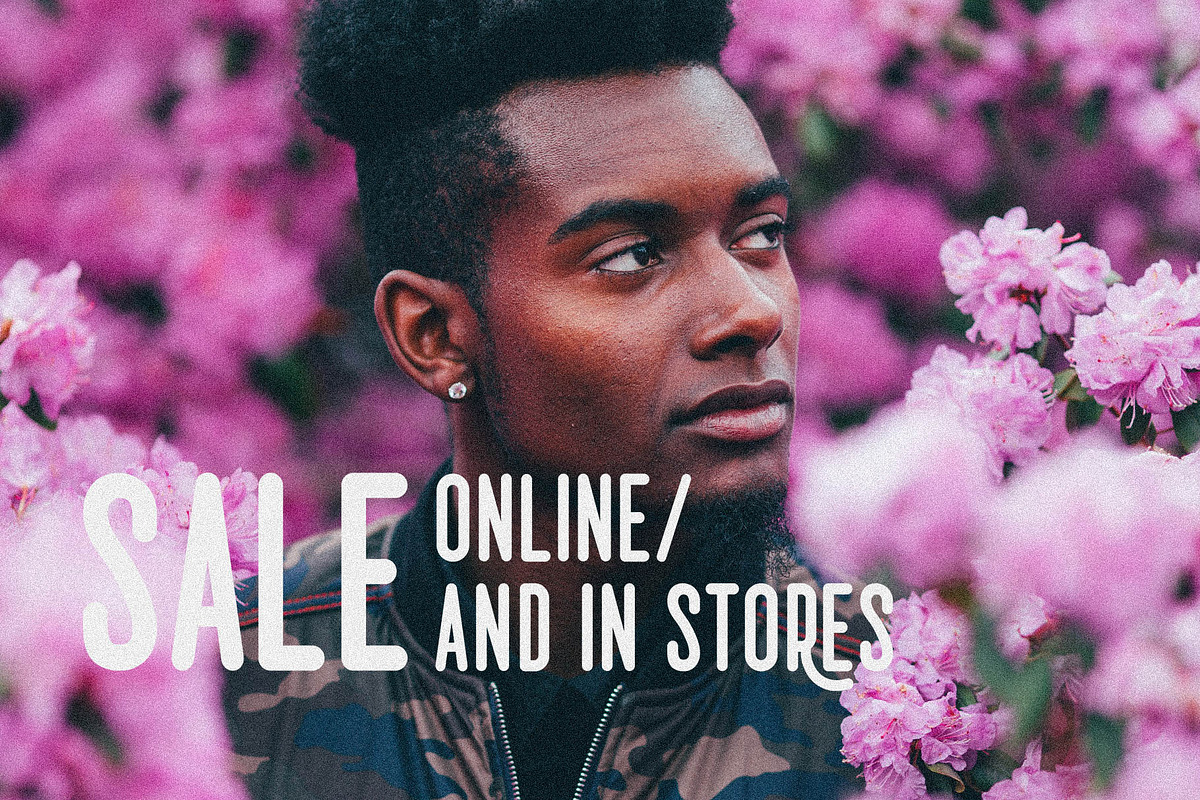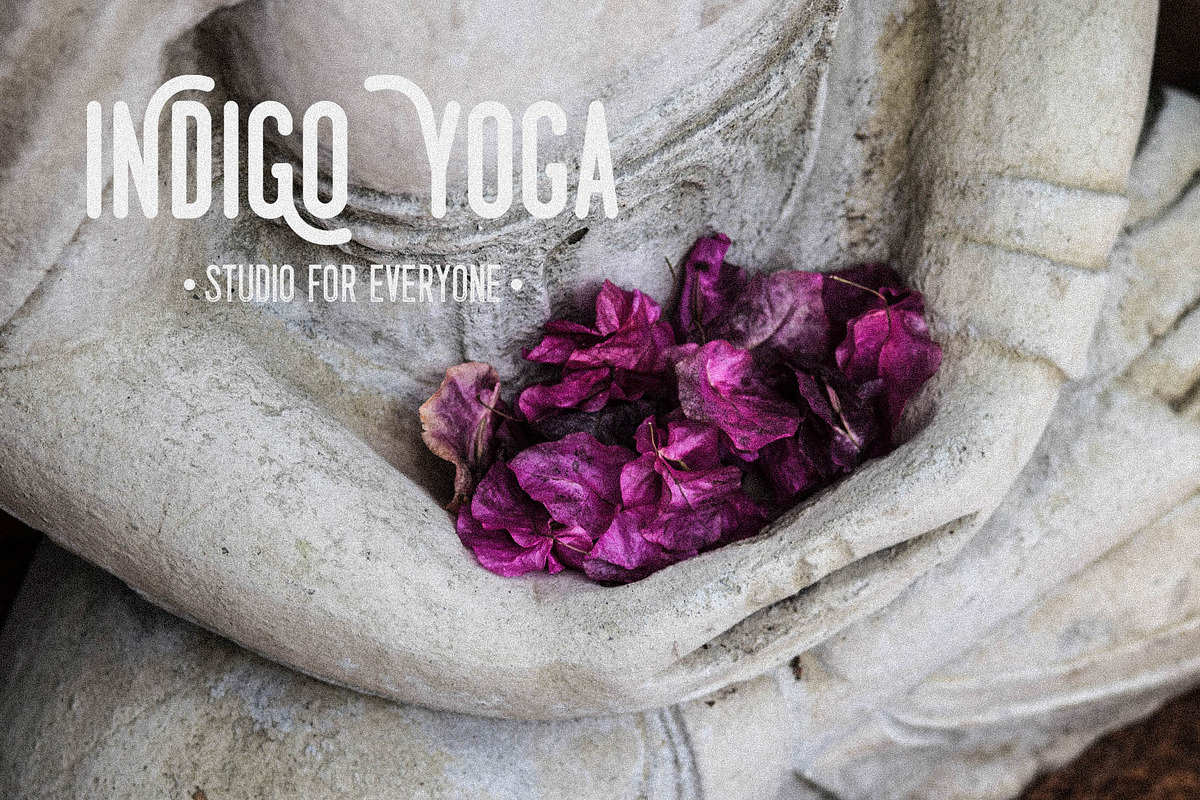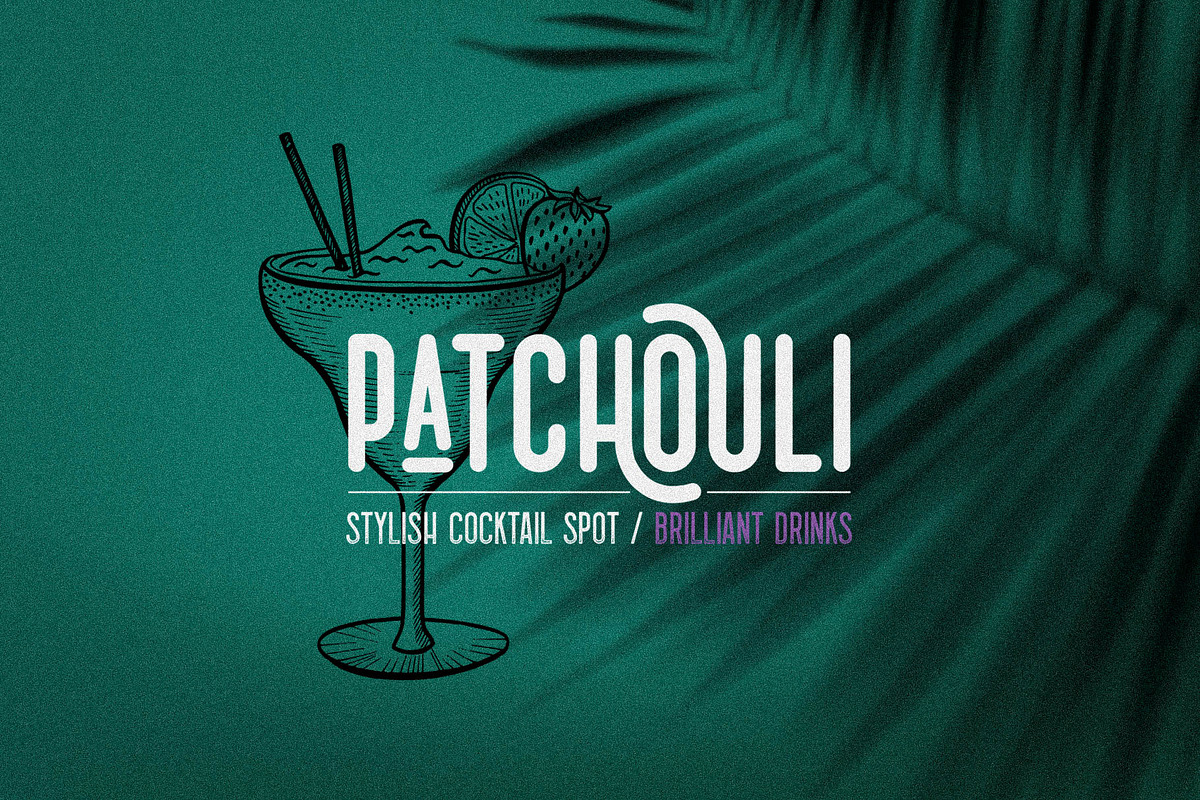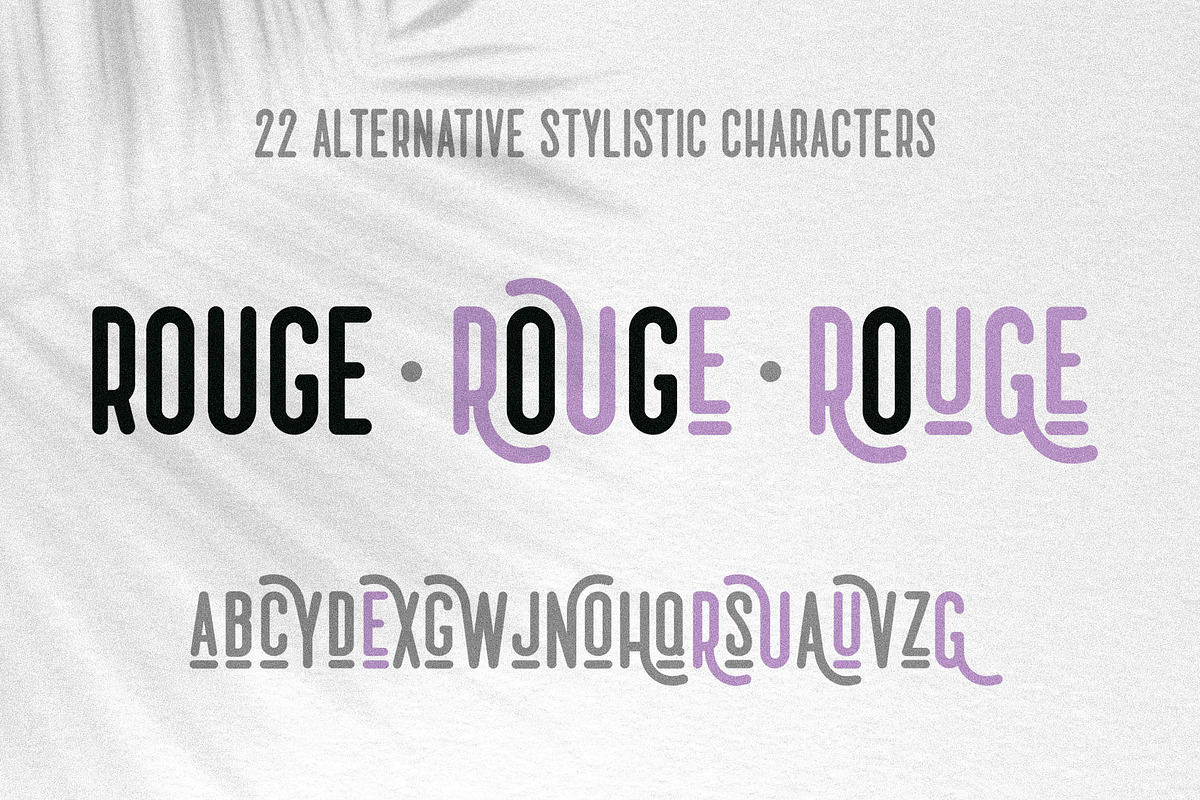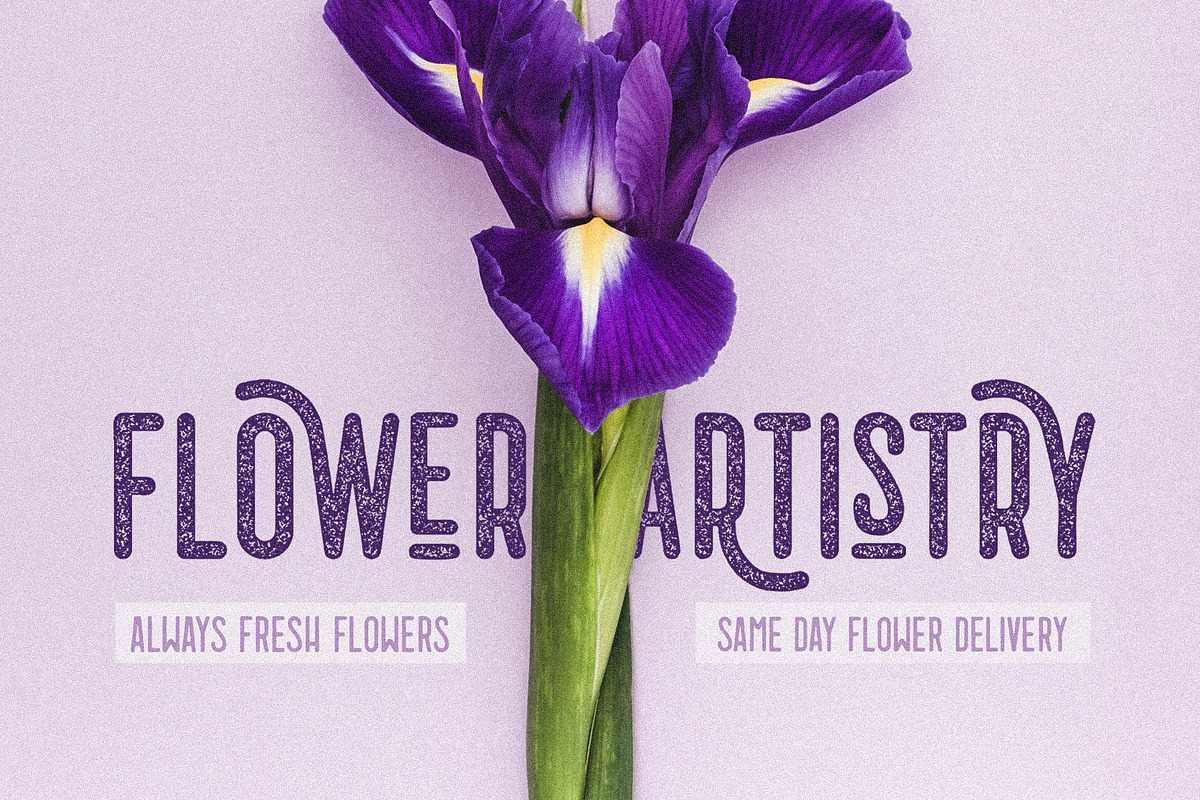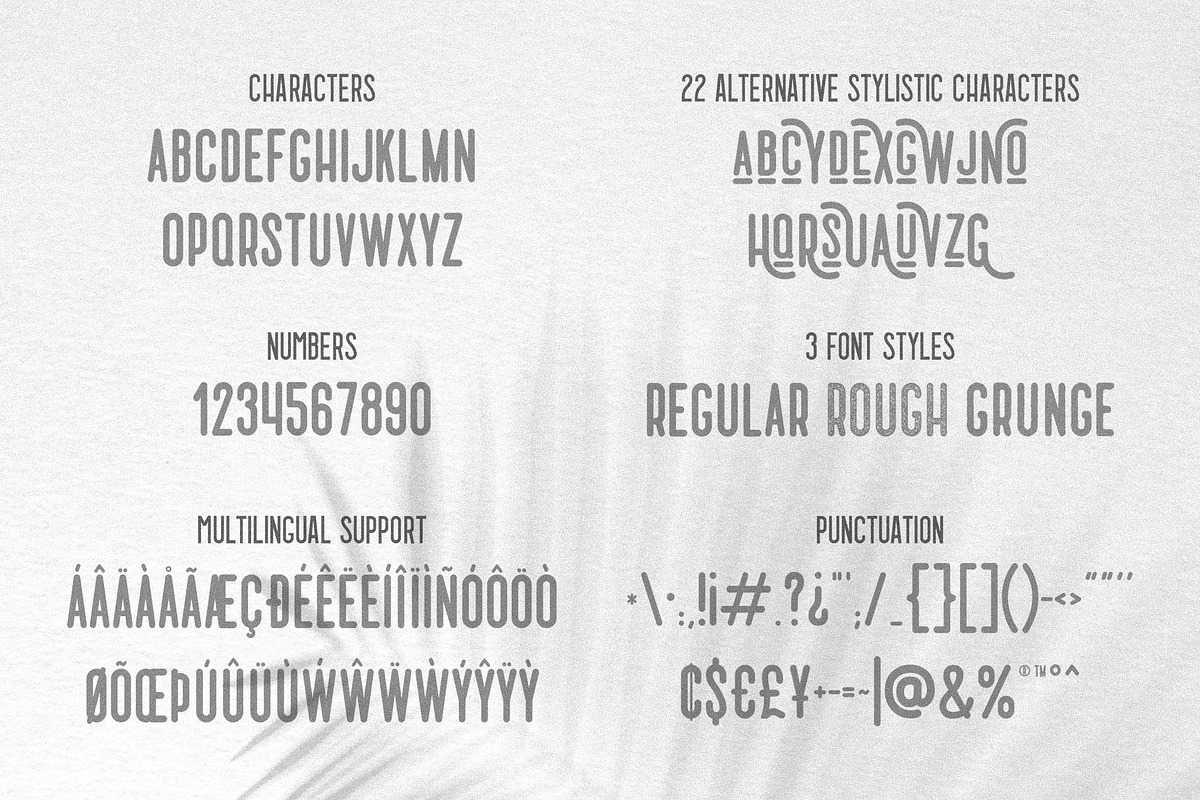
3 Fonts Mango Tango Collection
Mango Tango Font Collection - 3 Styles
Mango Tango - a font collection of regular, rough, grunge styles. Includes uppercase letters, punctuation, numbers, alternative special characters, multilingual support.
- Mango Tango Regular
- Mango Tango Grunge
- Mango Tango Rough